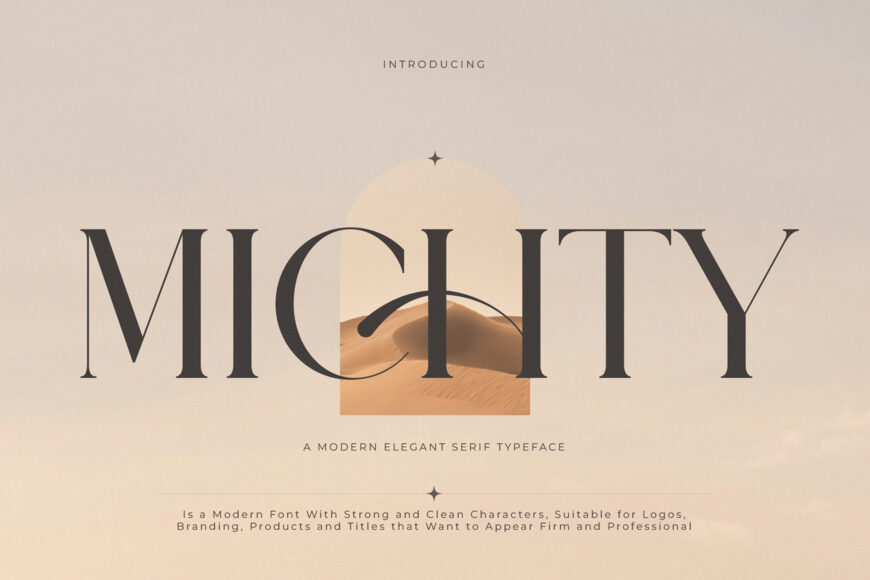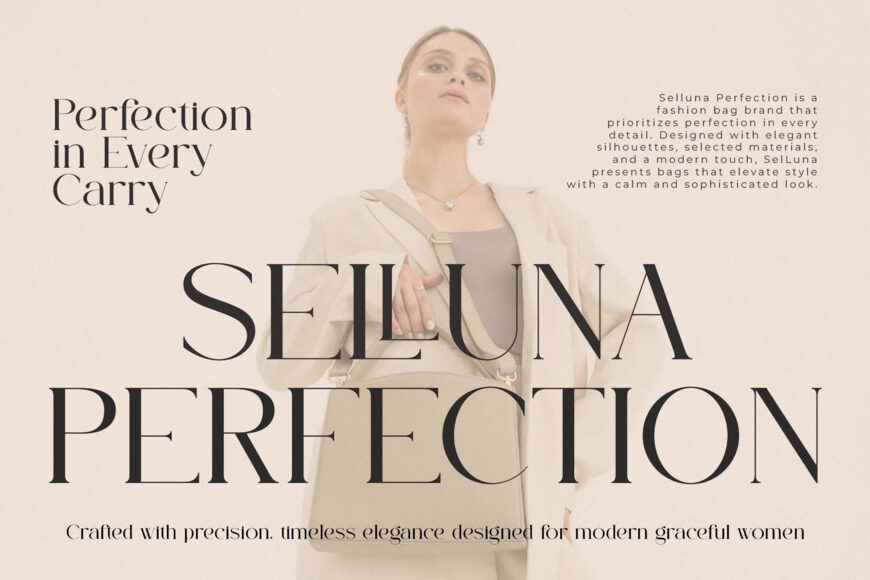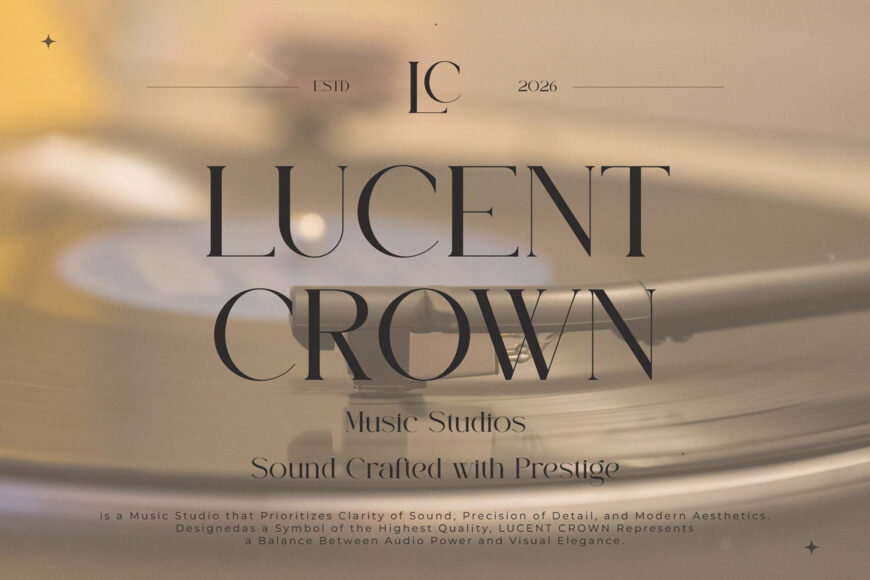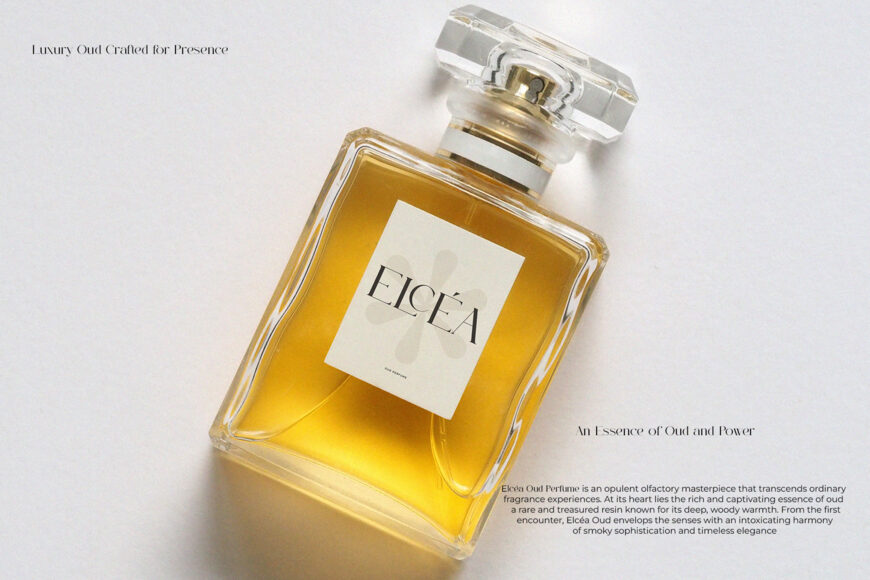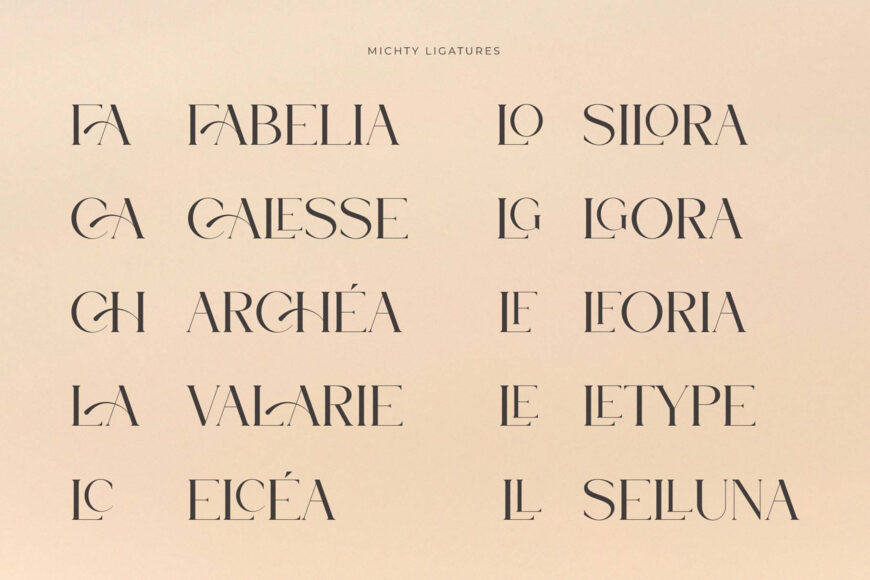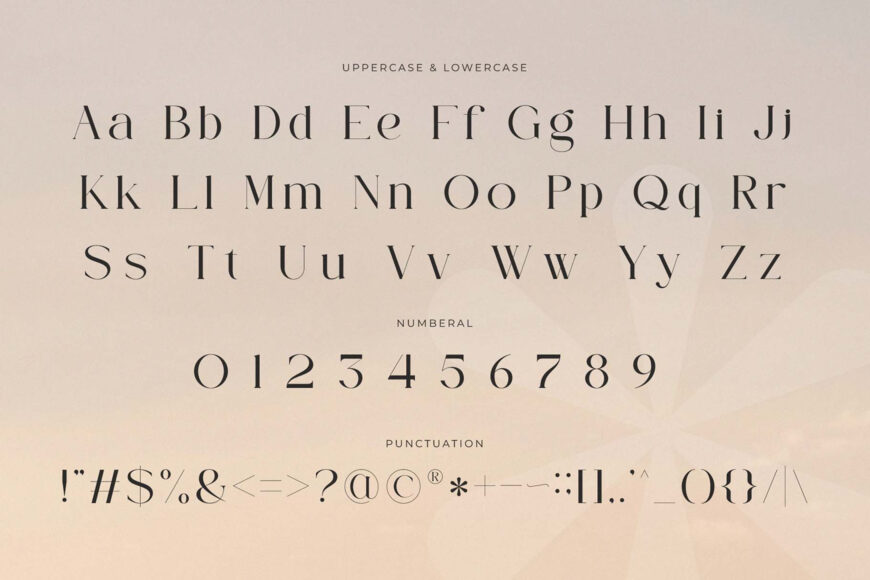
Michty Font
Introducing Michty the elegant, beautiful, and modern serif font. With its modern and minimalist look, Michty brings a luxurious, classy, ​​and clean style to your projects such as websites, modern logos, brand identities, social media quotes, wedding stationery, magazines, and more!
Michty features unique and classy capital letters A to Z and also comes with unique alternates making Michty a beautiful font that can be customized for various projects and jobs you want. Michty is perfect for: logos, brands, wedding invitations, business cards, greeting cards, posters, magazines, social media, agenda prints, and websites.